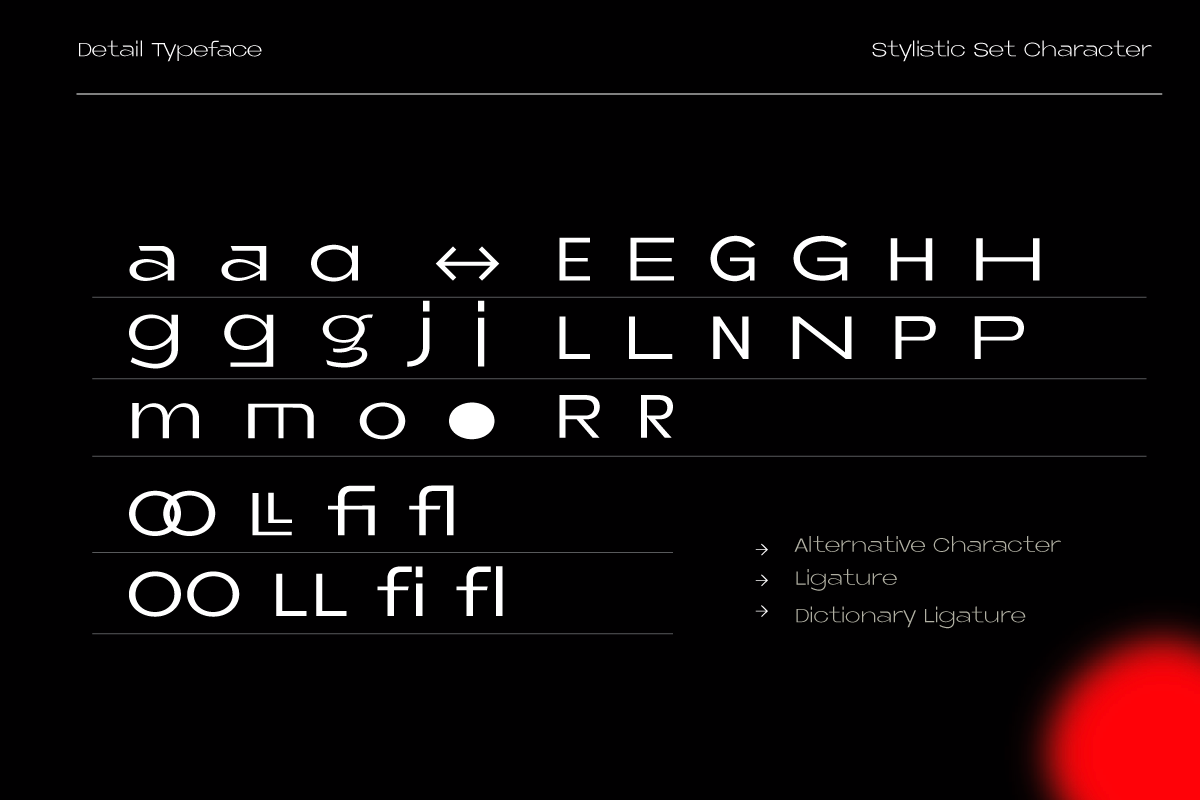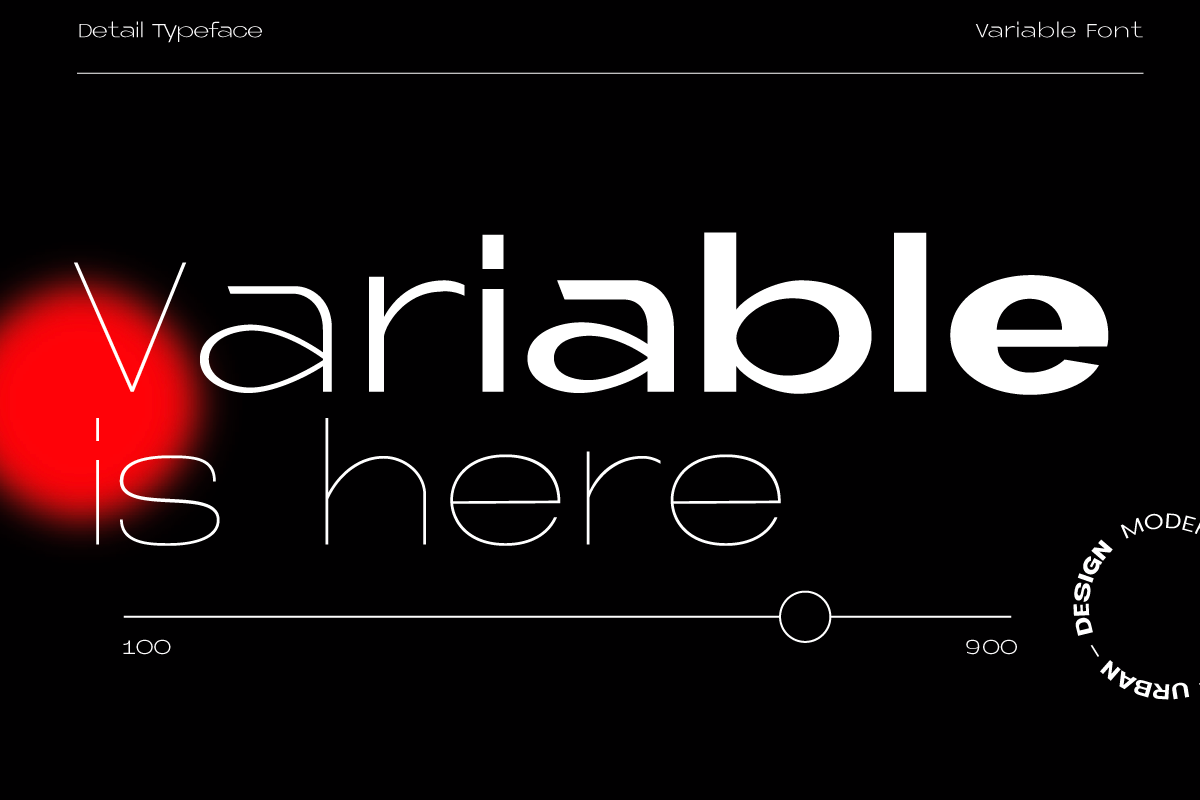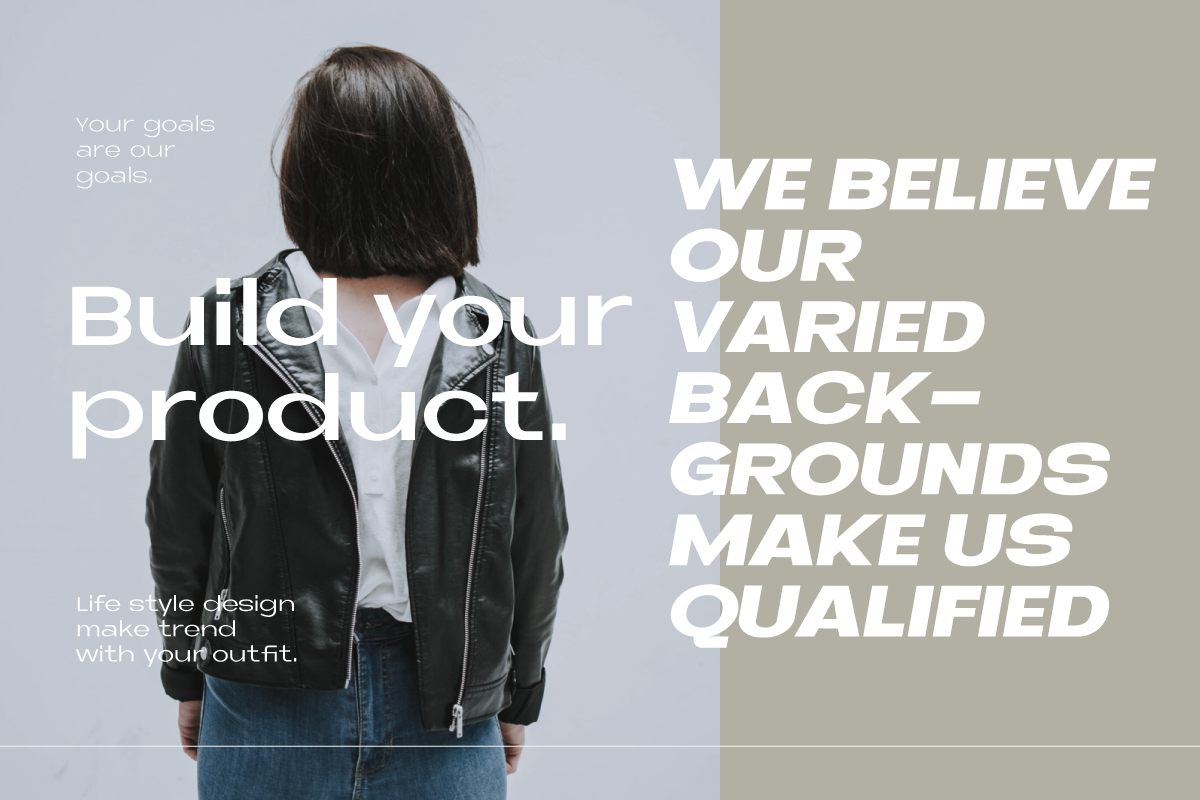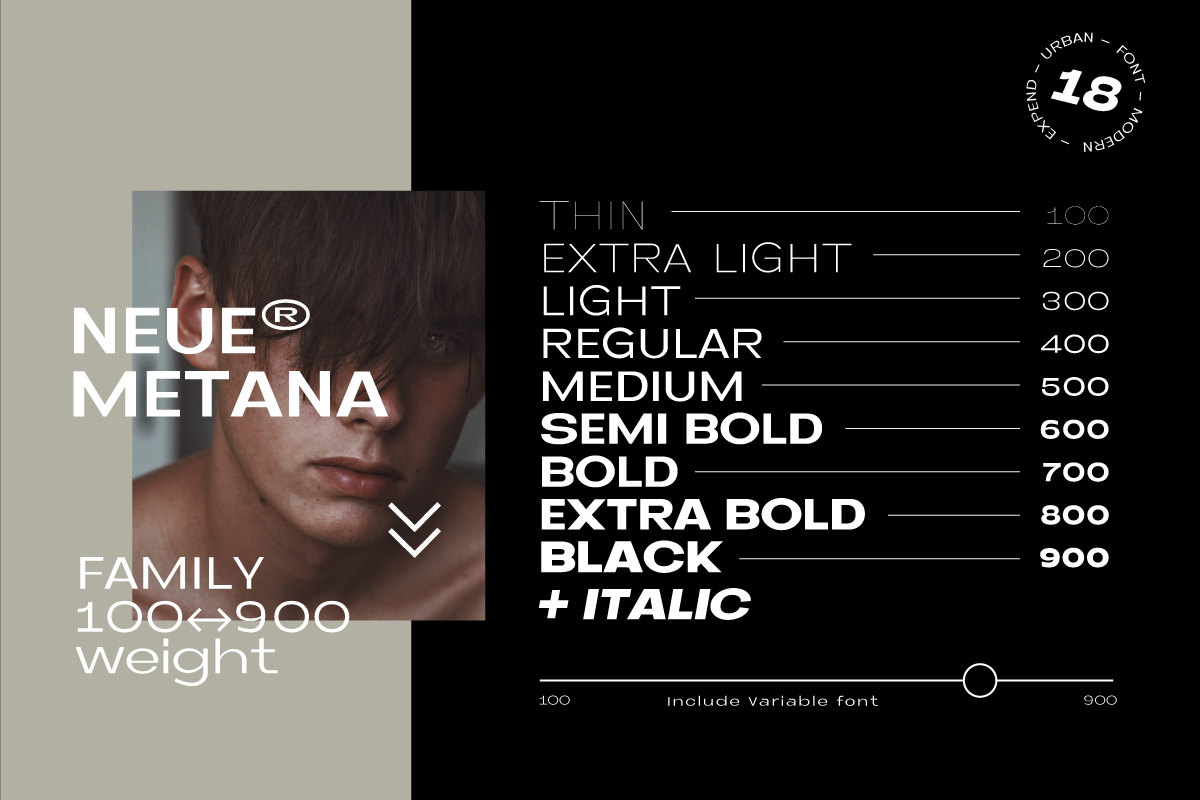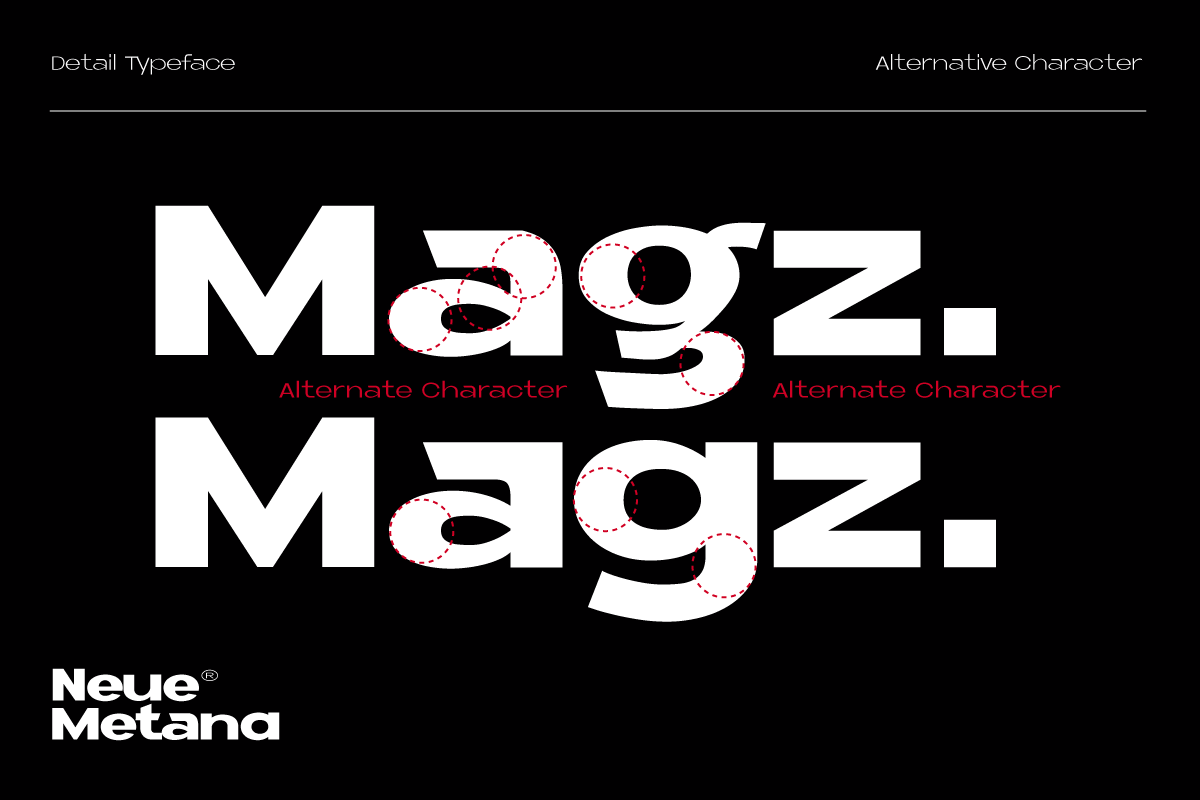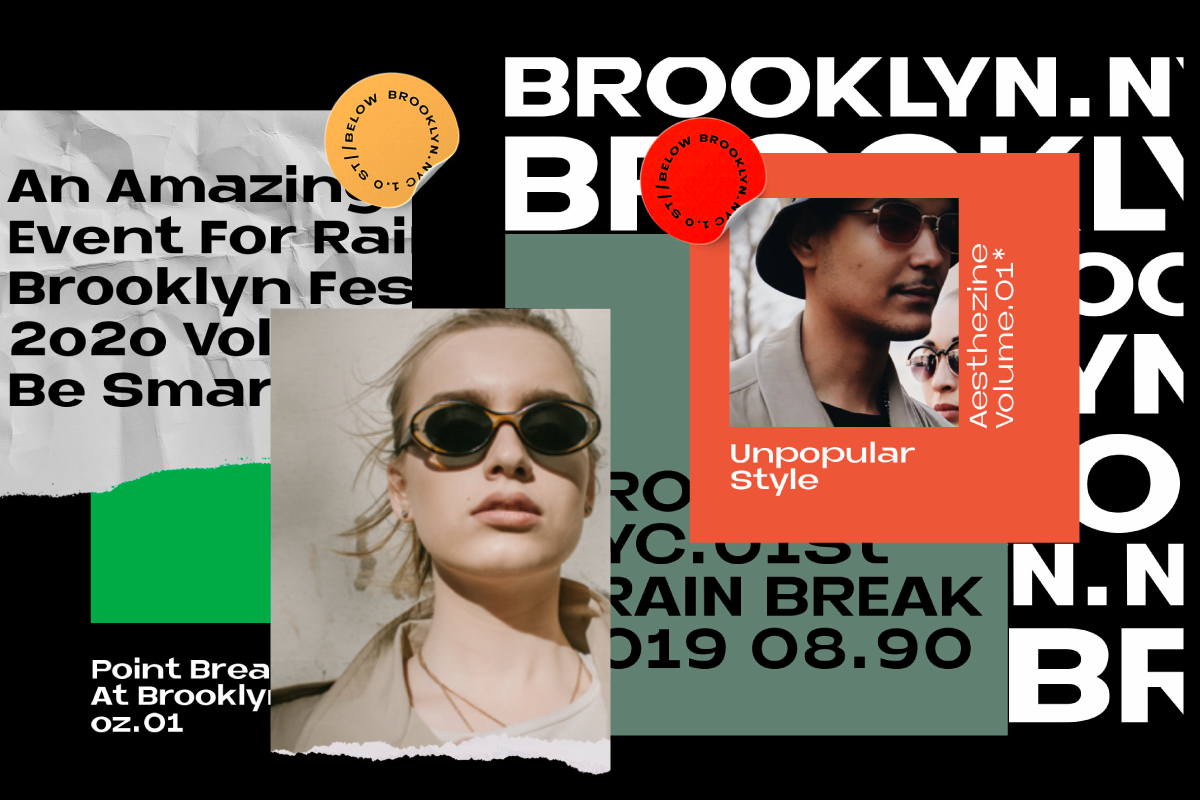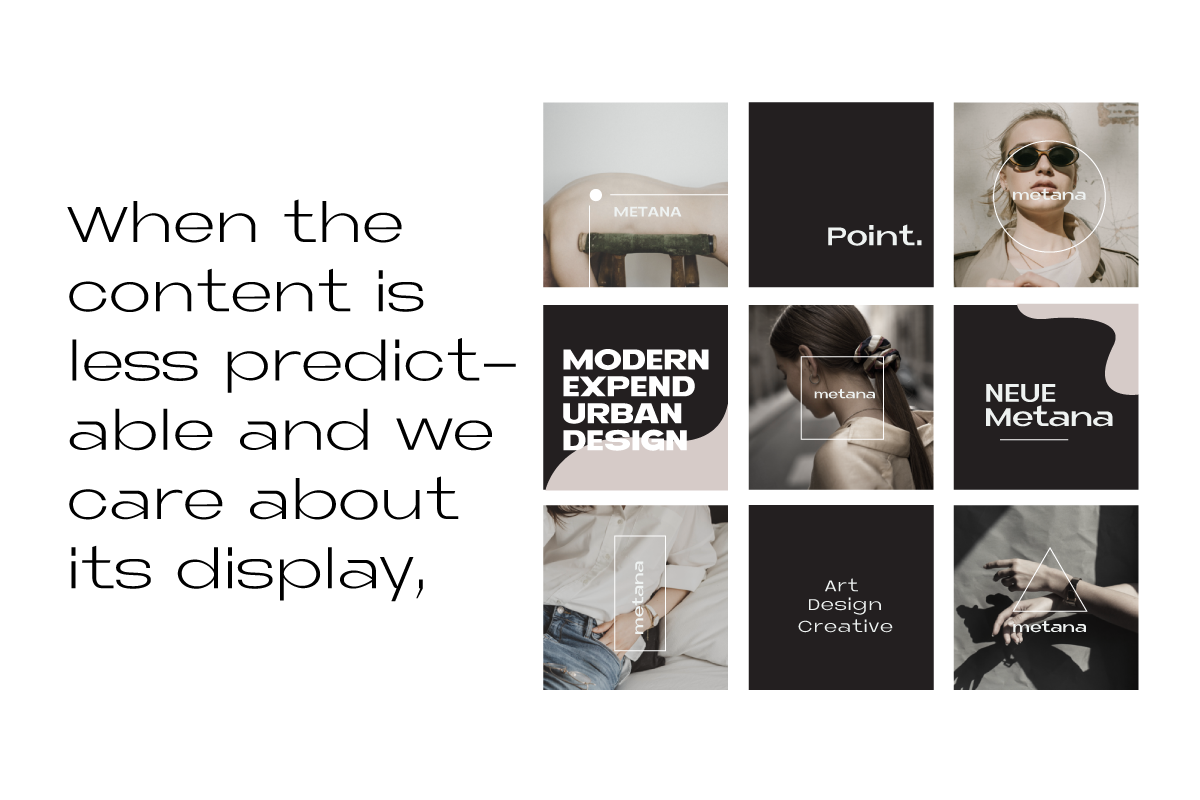
Neue Metana is a modern minimalist design typeface with geometric type and more feature alternative character. there include some ligature. It is inspired by hype and urban design - a font suited for lifestyle with trend design. It was designed to be versatile, to blend in your design with light through bold weights add touch a lot of personality.
It was design to be versatile, to blend in your design with light until - Bold it’s weight to touch a lot of personality. the font was created in collaboration with Aulia Rahman from showup!® typefoundry . Typespeciment design by graphic designer Jeje Yuhardi and Wildya Balqis.